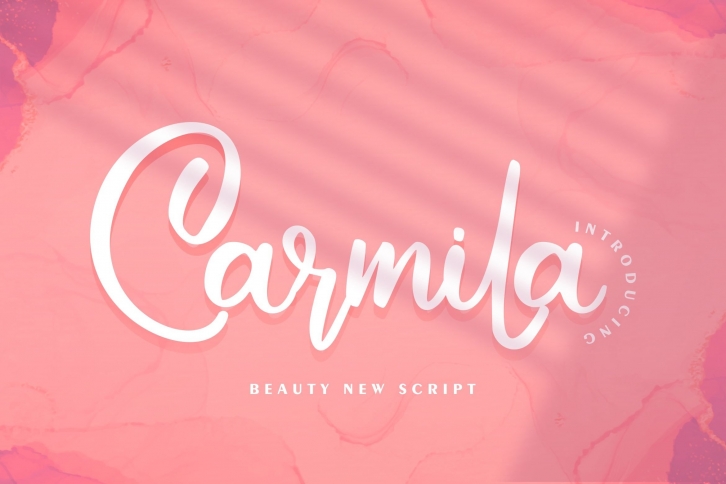
Carmila is a trendy and unique font with an authentic style. It was designed by Vunira and it's a great choice for creative people who need such a font. It was released on January 1, 2021 and the file size is 6.45 MB. Carmila will add an organic vibe to any design idea!